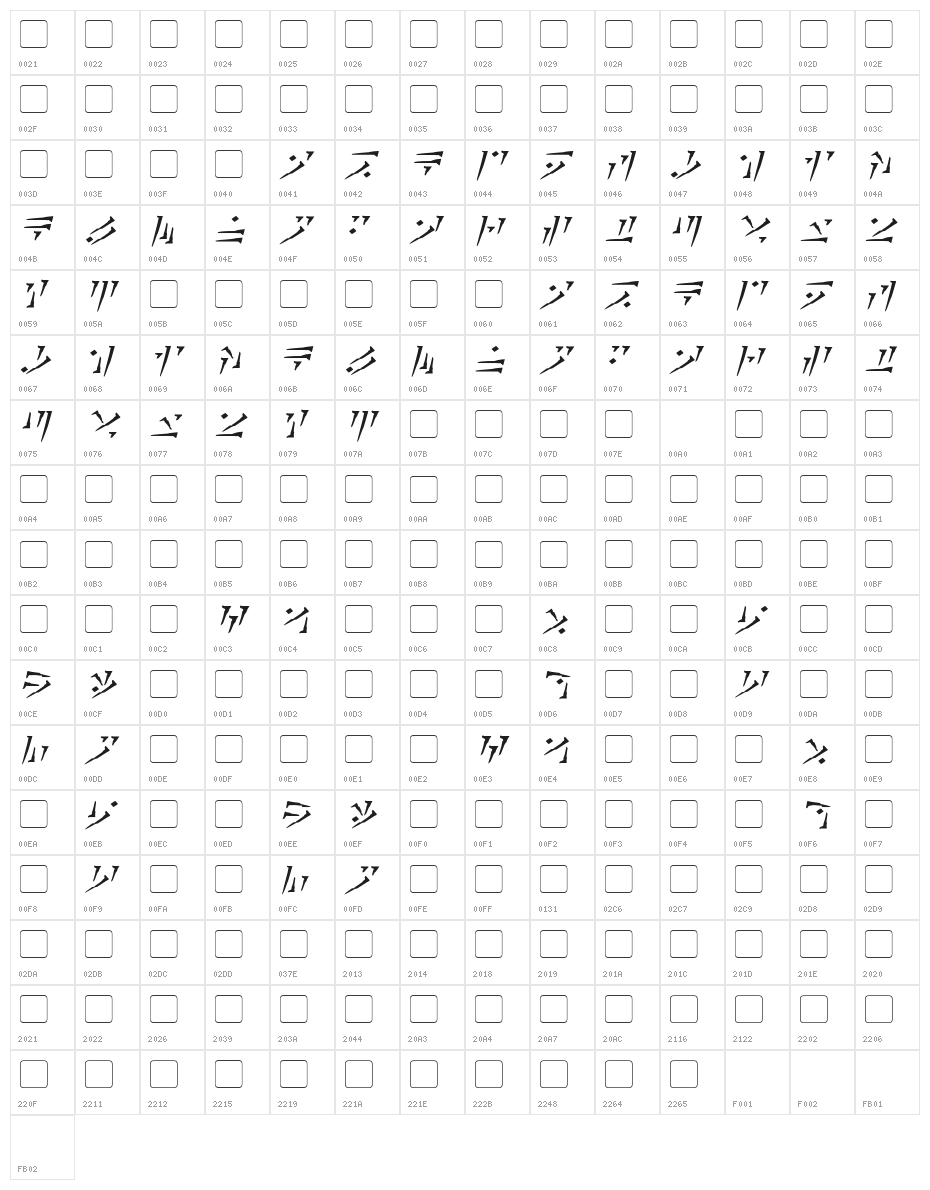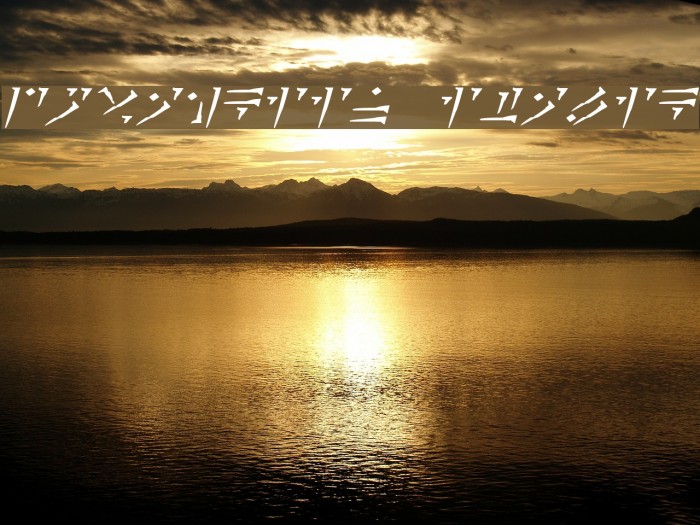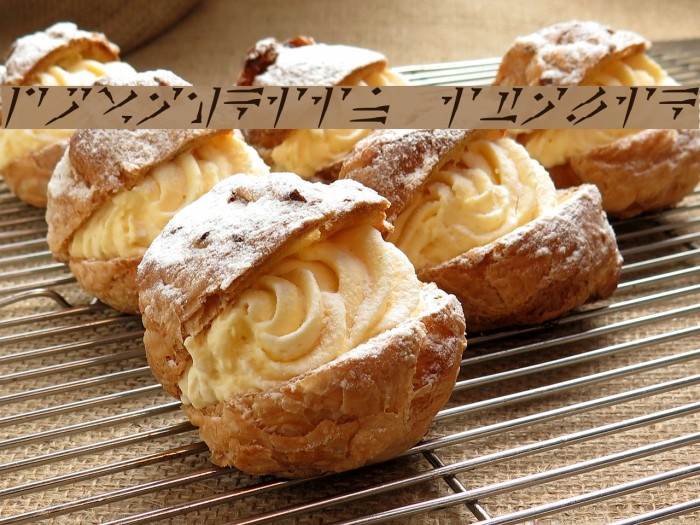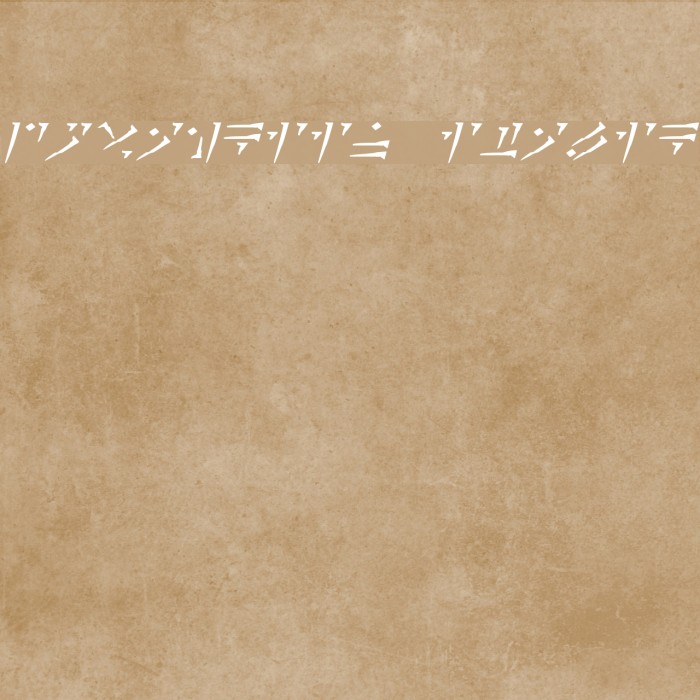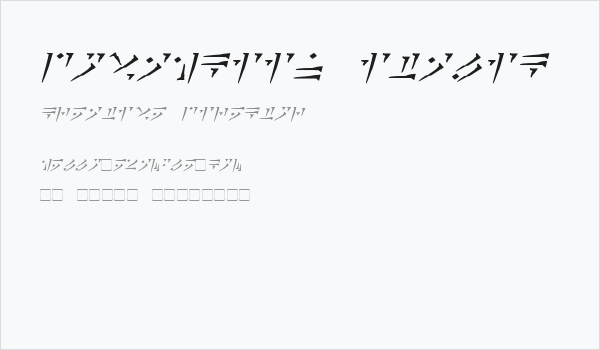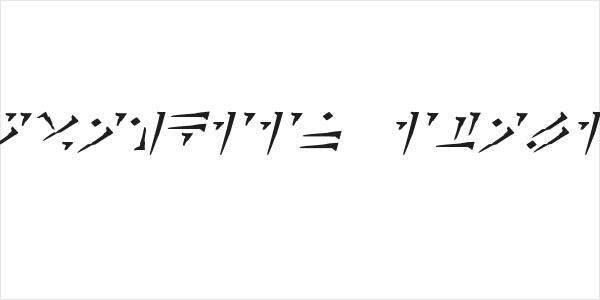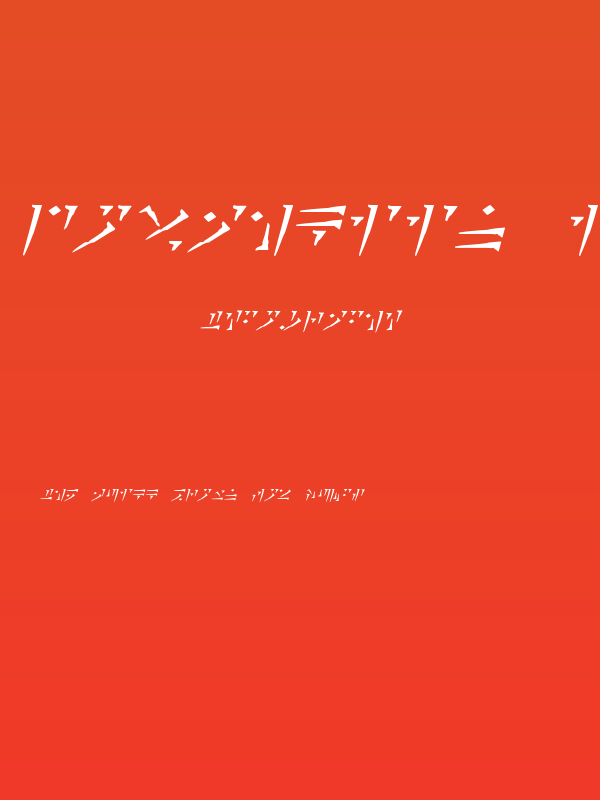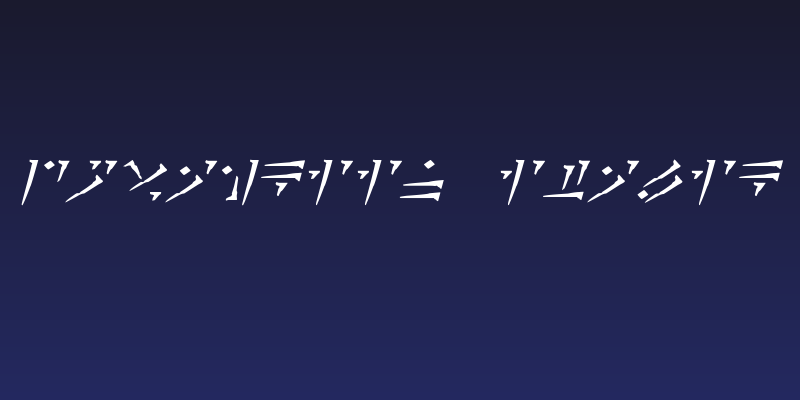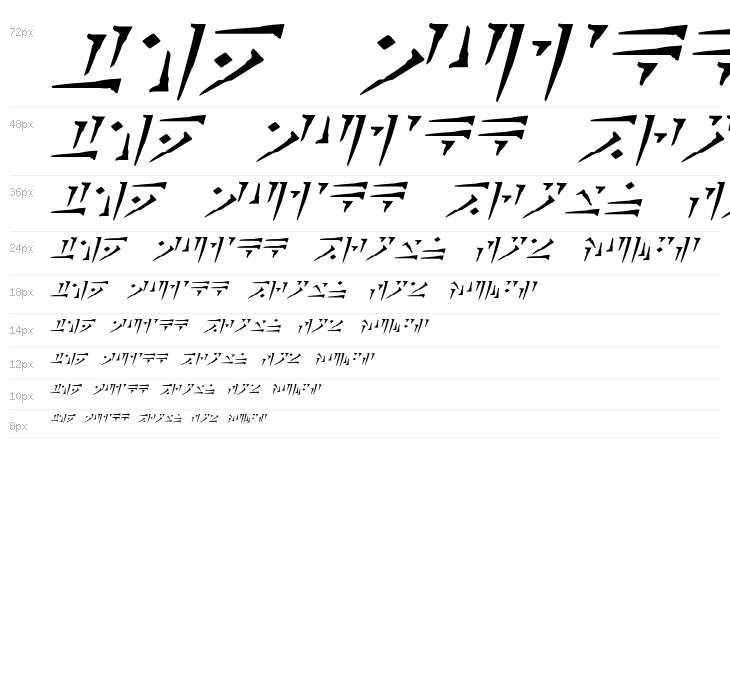
Dovahkiin Italic Font
Dovahkiin Italic Description
This font features a unique, angular design reminiscent of ancient runic scripts, with sharp edges and a distinct, italicized slant that gives it a dynamic and mystical appearance. The characters are stylized with a high degree of angularity, creating a sense of movement and energy. The strokes are bold and consistent, providing a strong visual impact. This font is particularly suited for projects that require a fantasy or medieval theme, as it evokes a sense of mystery and adventure. The spacing between characters is tight, enhancing the compact and cohesive look of the text.
Overall StyleMystical, Fantasy
Proposed ProjectsIdeal for fantasy-themed designs, video game titles, book covers, and posters.